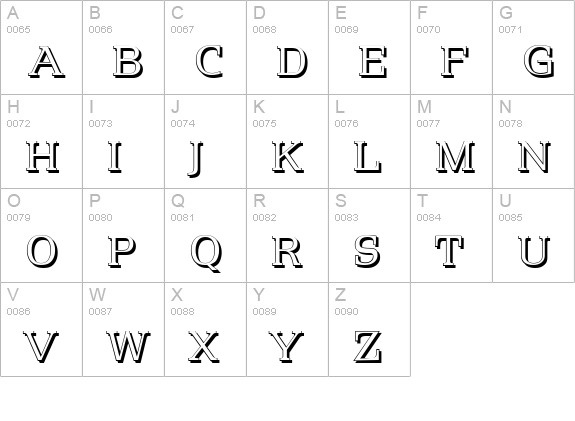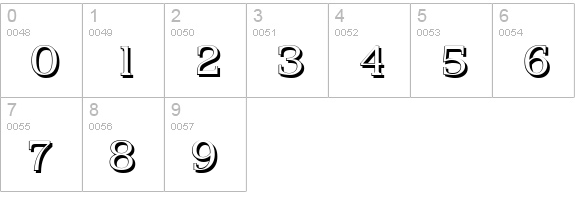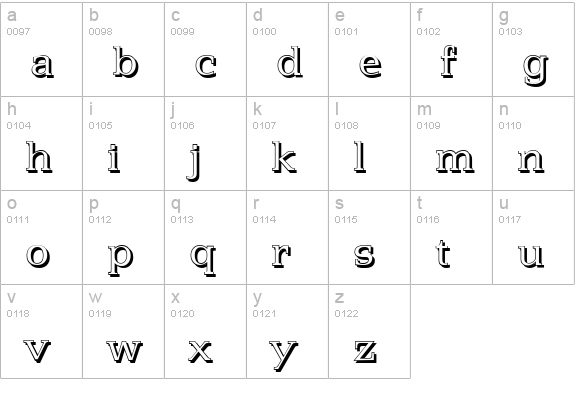
PenthouseShadow-Light-Regular Font Details
PenthouseShadow-Light-Regular is a refined, elegant variant in the PenthouseShadow typeface family \xE2\x80\x94 well suited to elegant body text, refined sub-headings, and luxury branding.
PenthouseShadow-Light-Regular is a sophisticated and elegant font that brings a touch of modern flair to any design project. With its sleek lines and stylish curves, this versatile typeface is perfect for creating eye-catching headlines, titles, and logos. The subtle shadow effect adds depth and dimension, making your text stand out with a touch of class. What's even better is that PenthouseShadow-Light-Regular is available for free download at FontsMarket.com. This means you can elevate your designs without breaking the bank. So why wait? Download PenthouseShadow-Light-Regular today and add a touch of refinement to your creations.